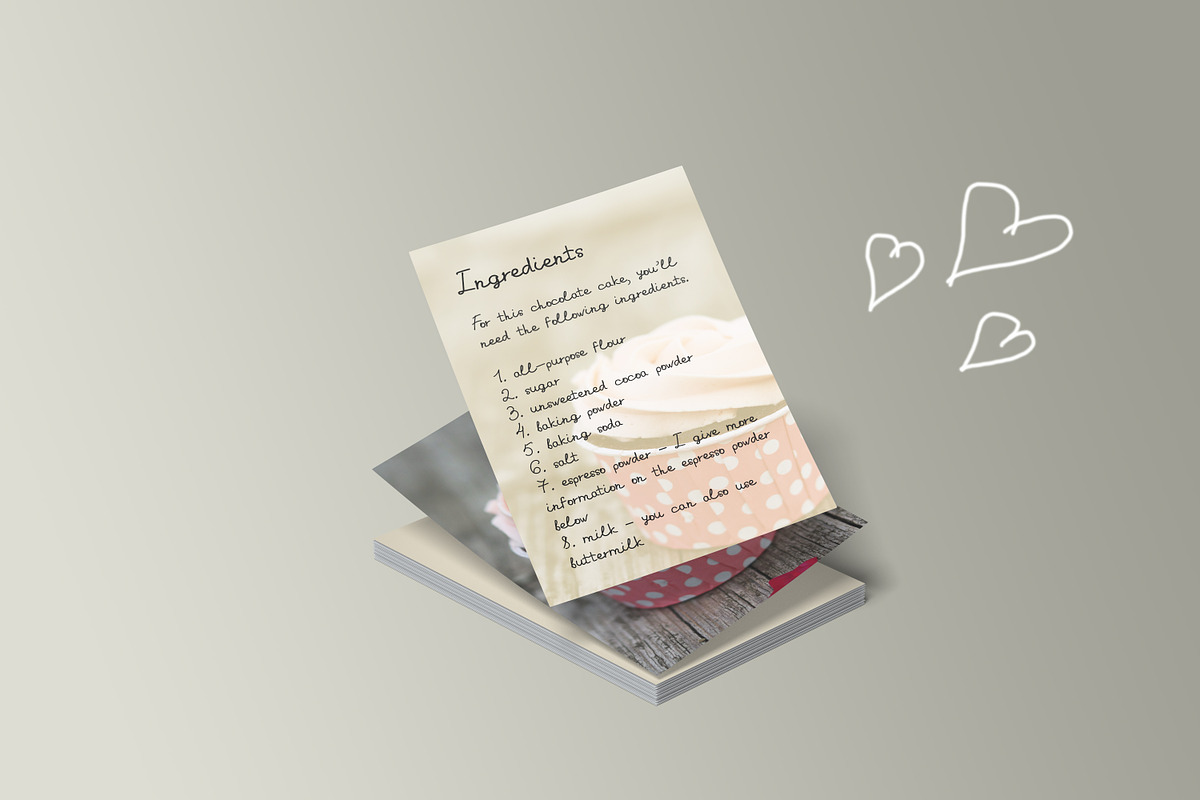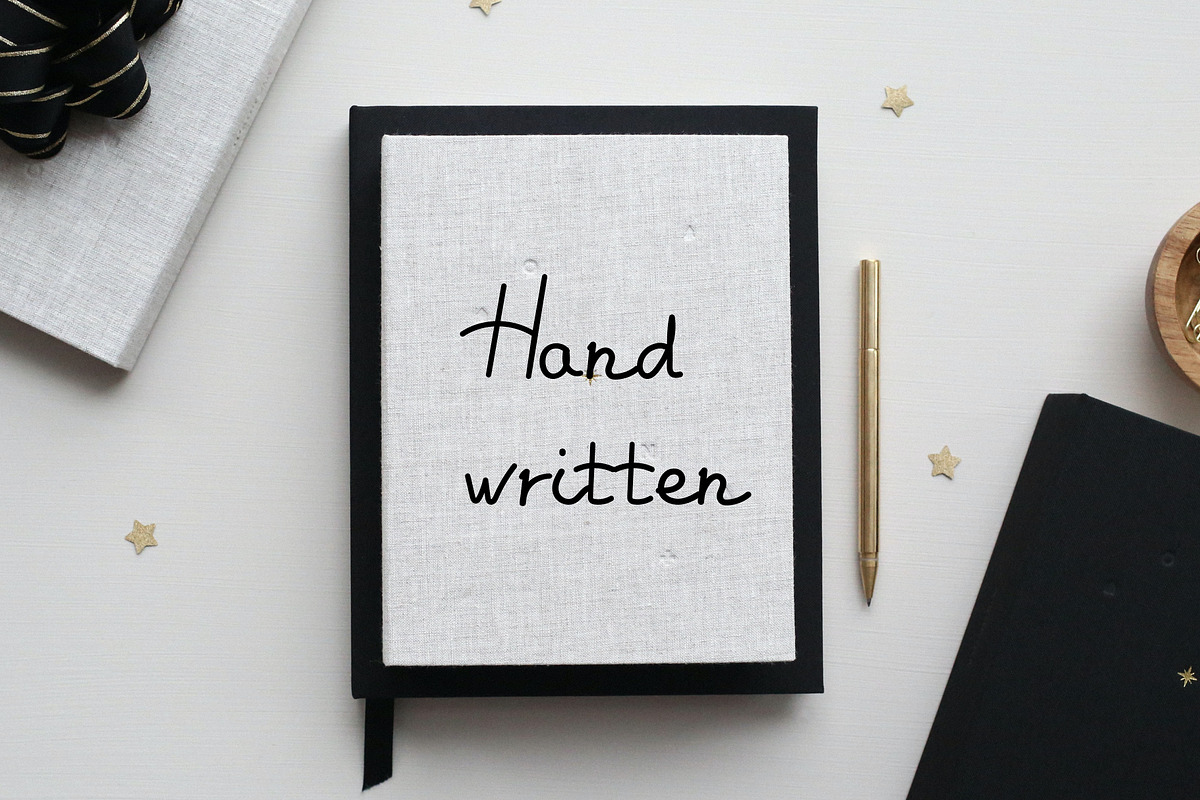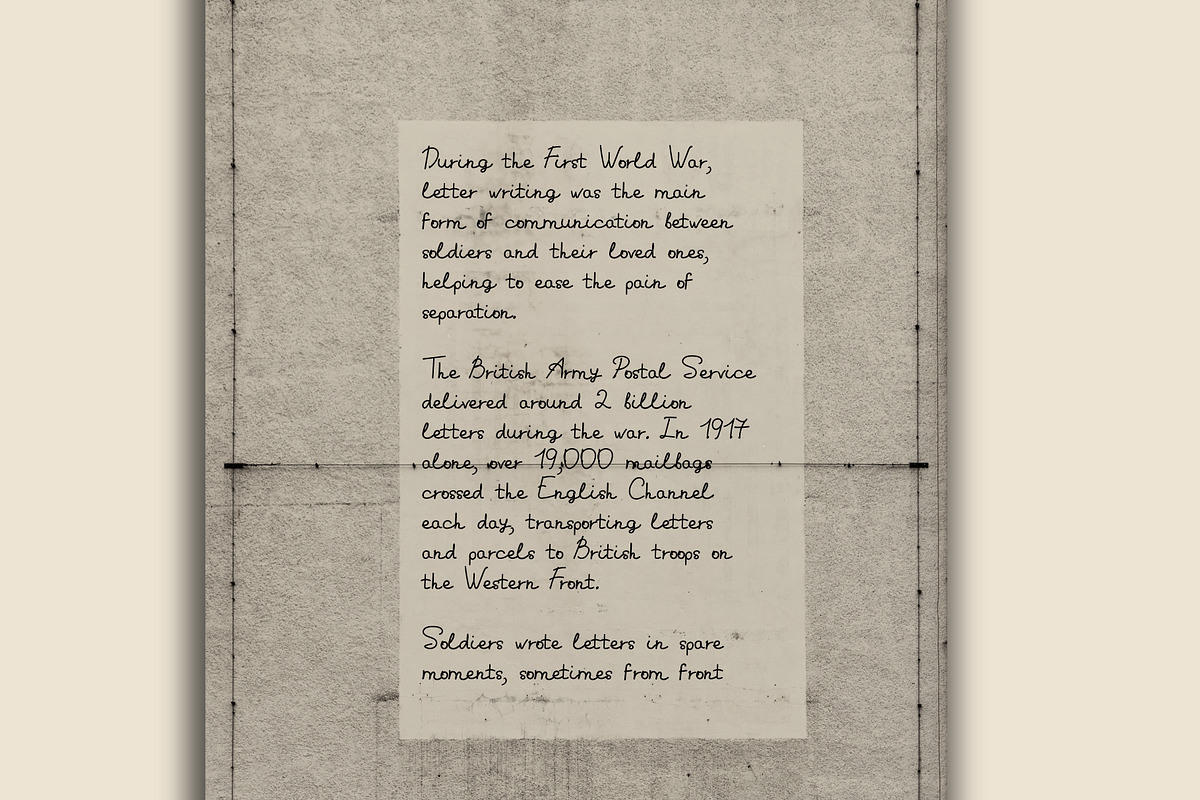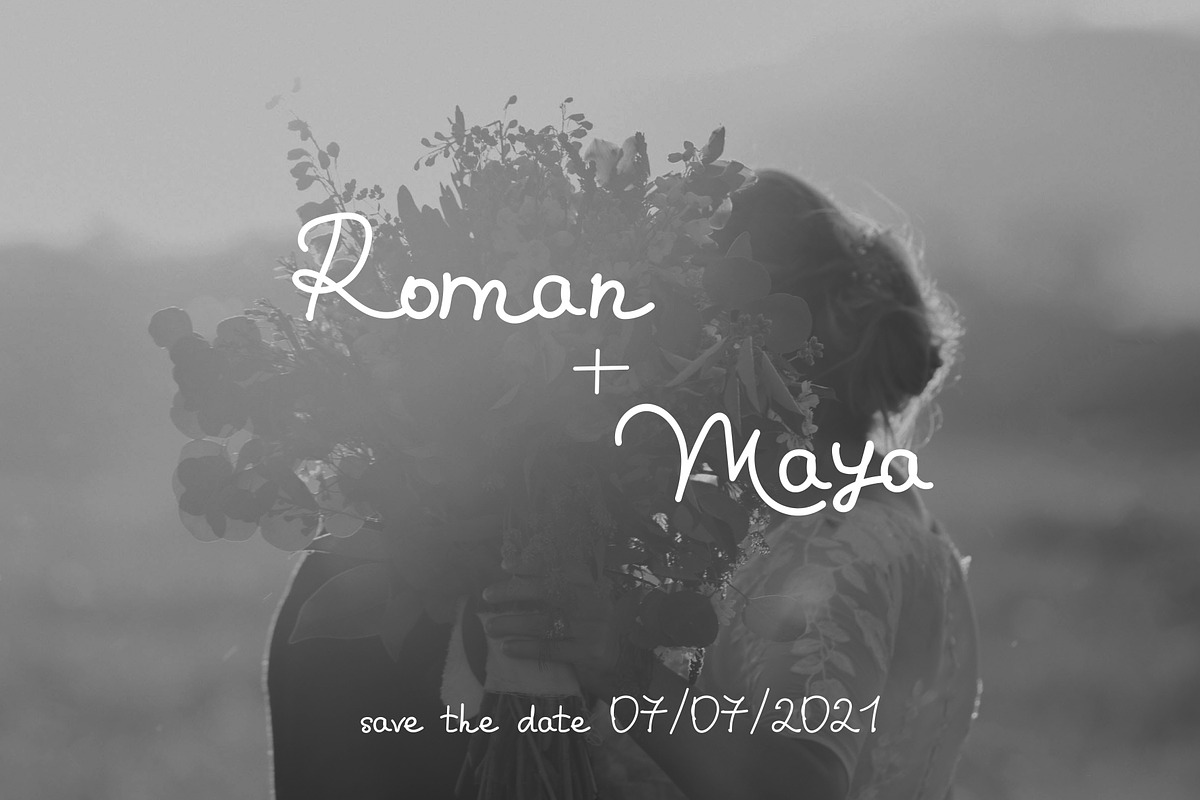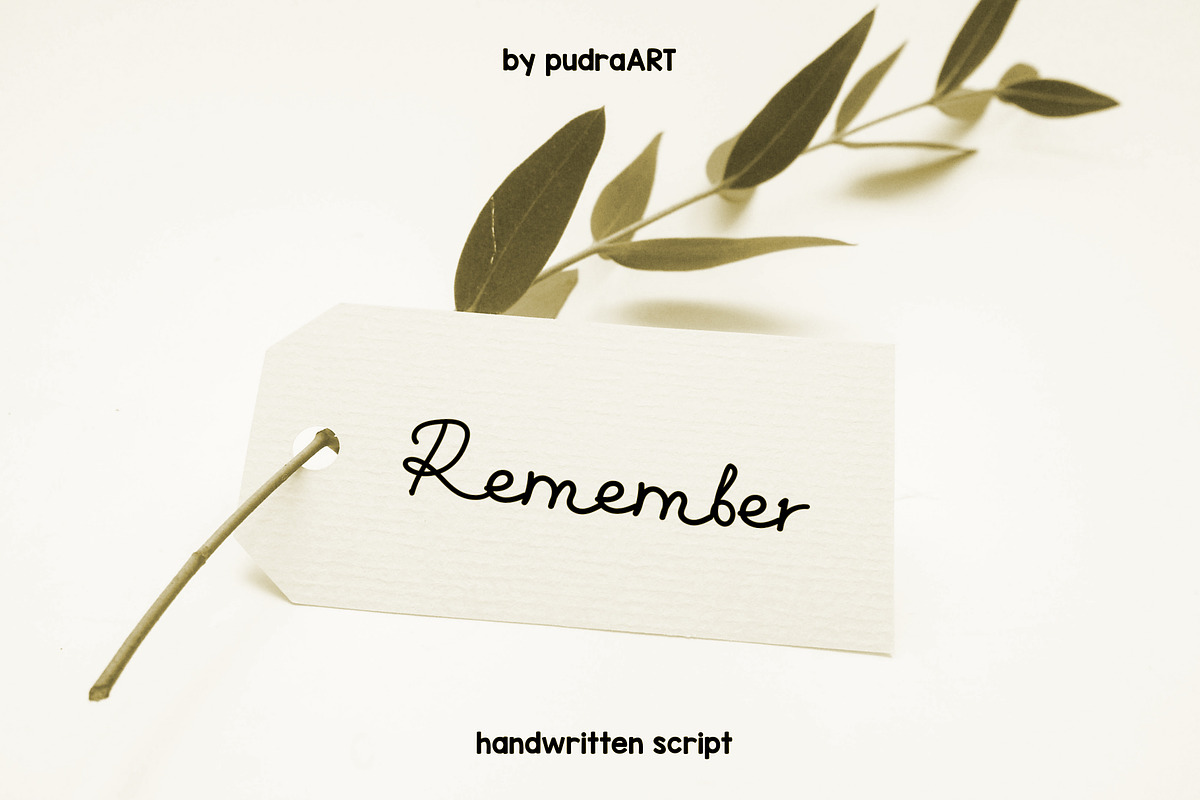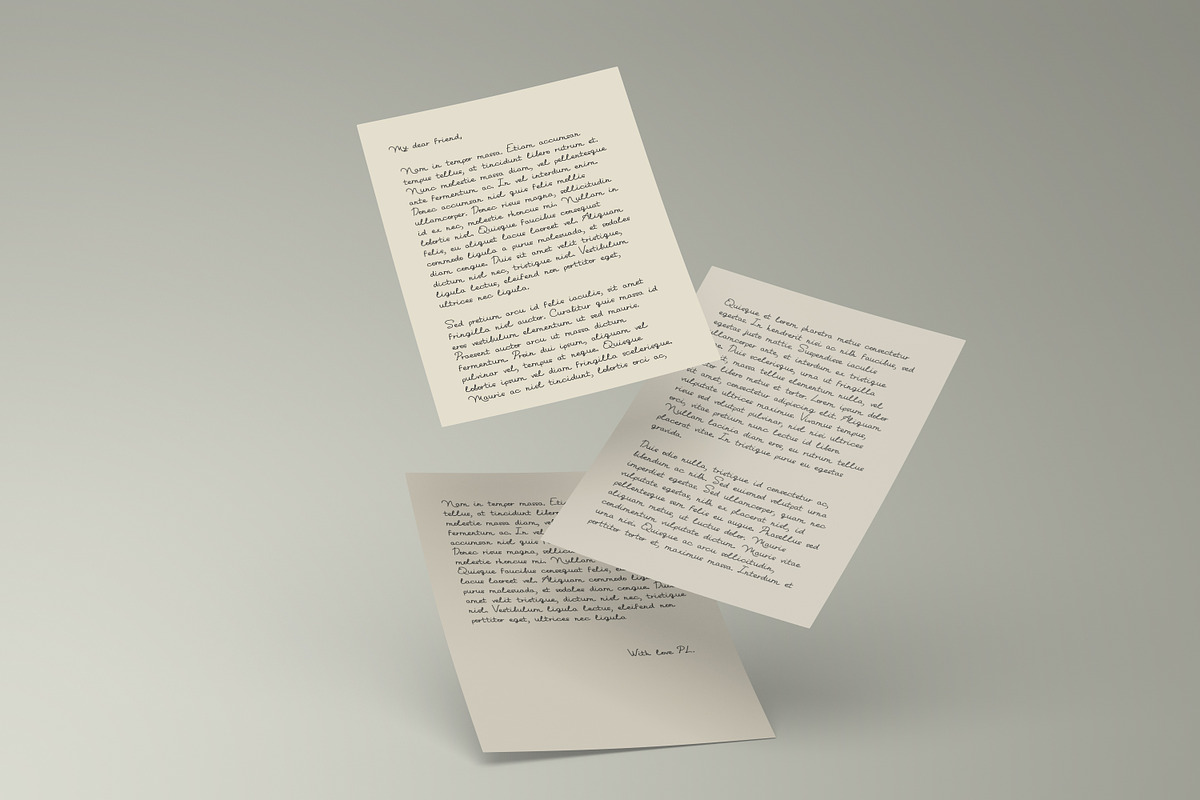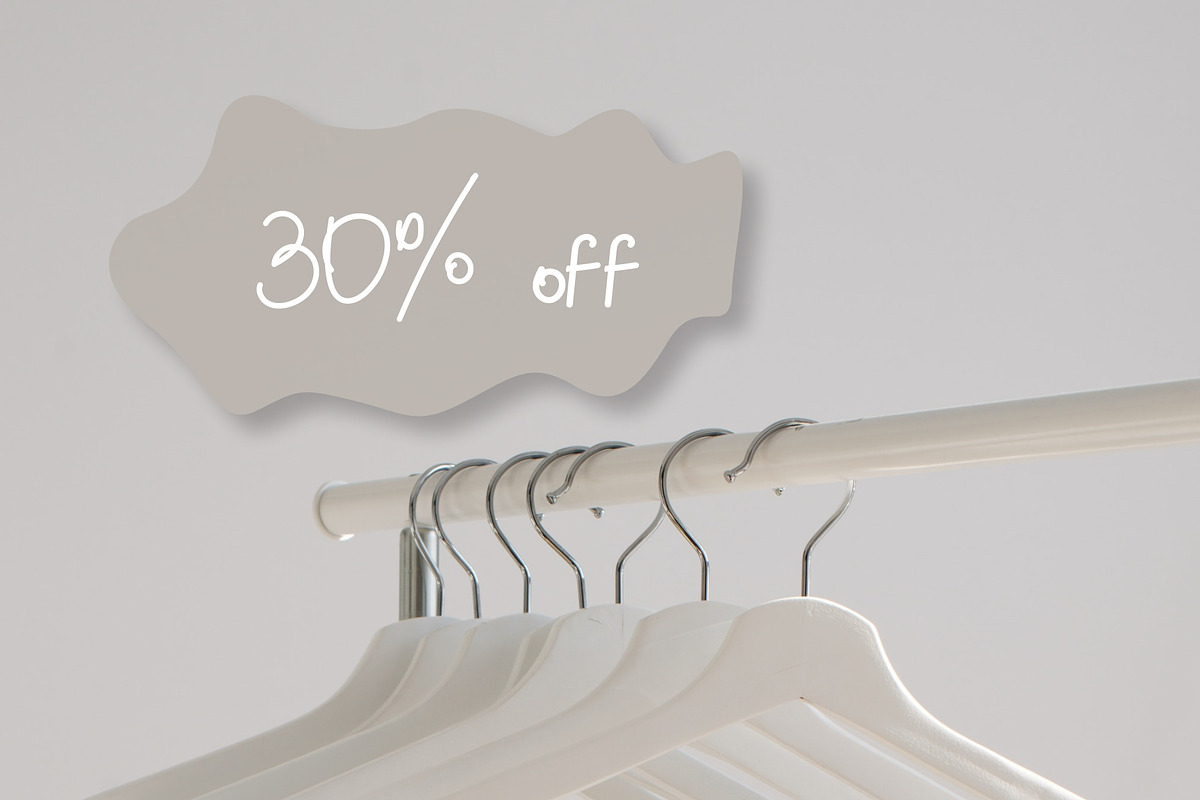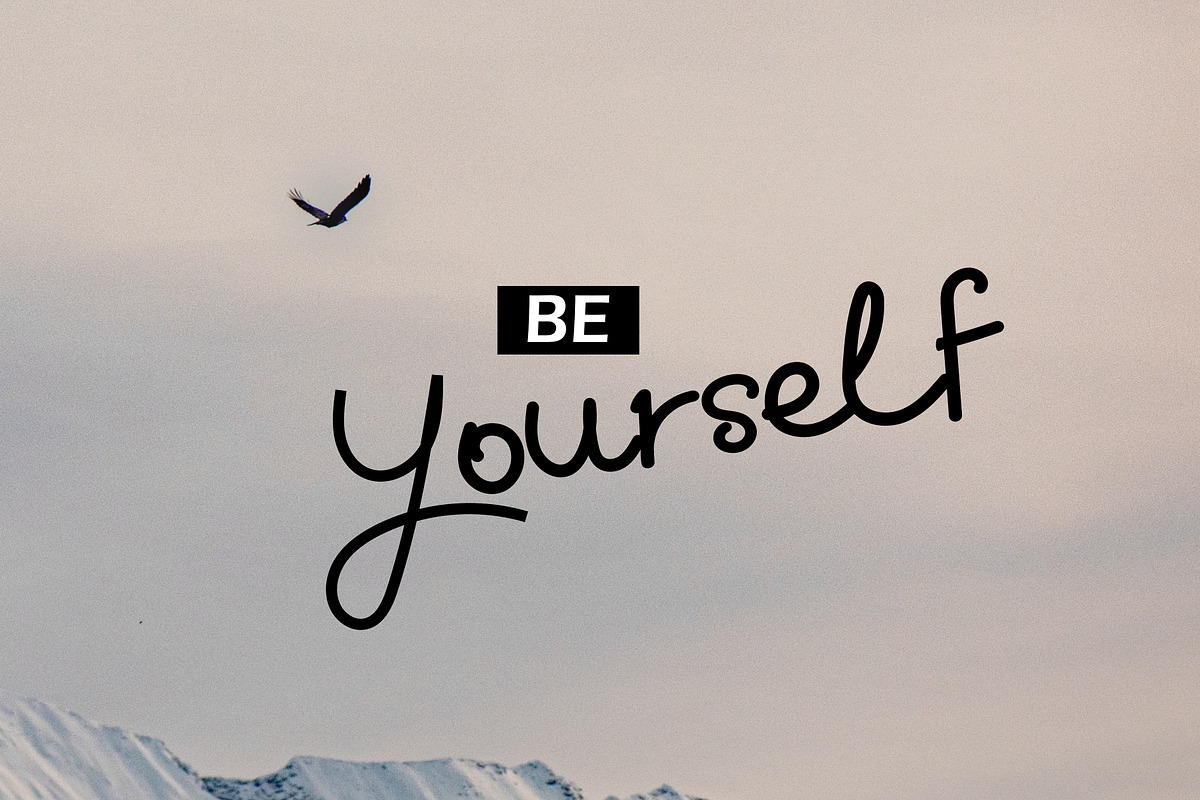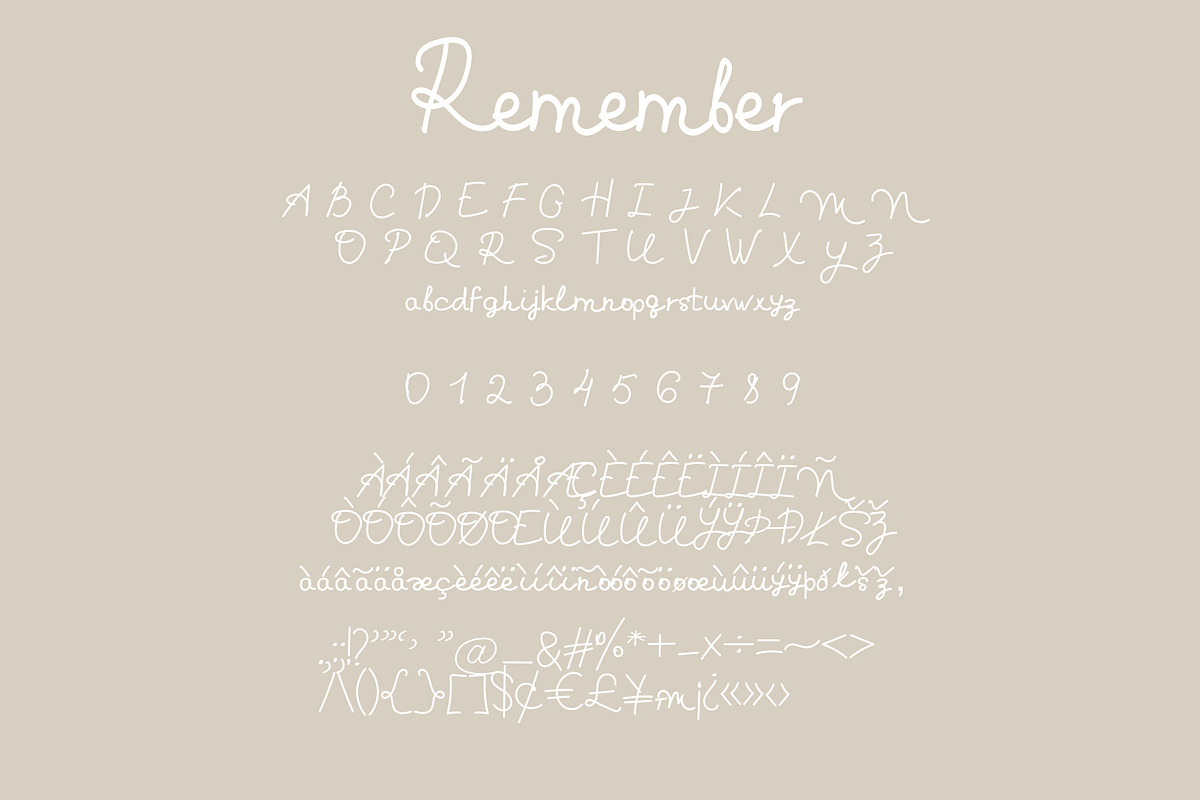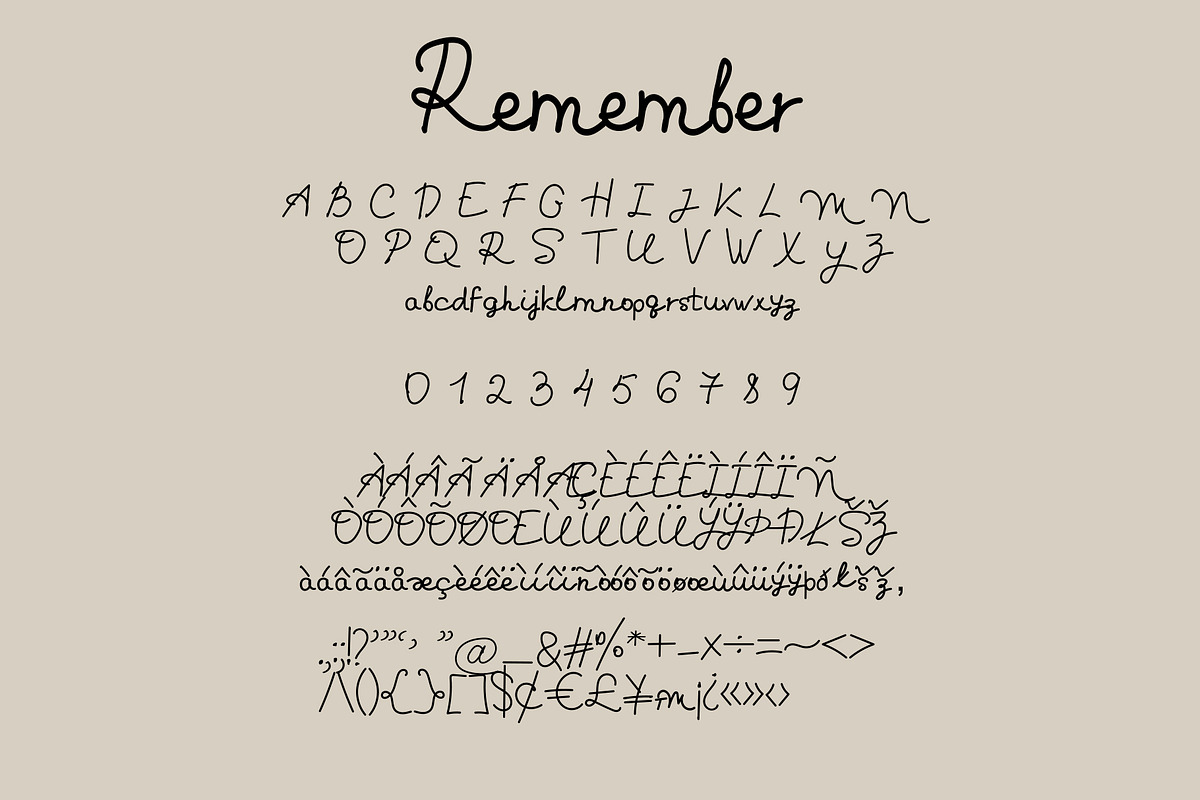
Remember
REMEMBER Script a super universal and useful handwritten font. It has multilanguage and punctuation
It is perfect for:
- flyer
- greeting cards
- packaging
- notice
- quotes
- logo
- sale etc.